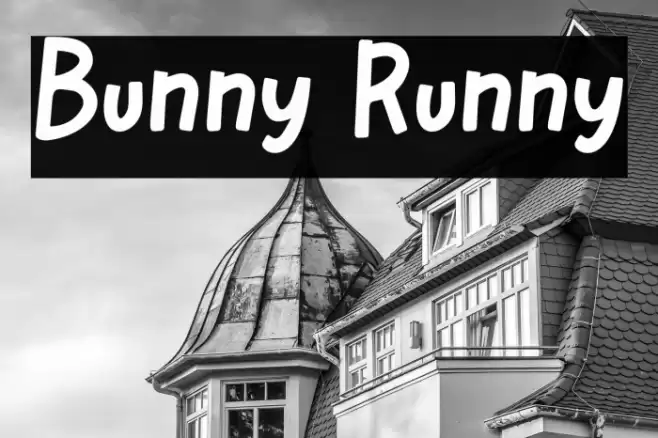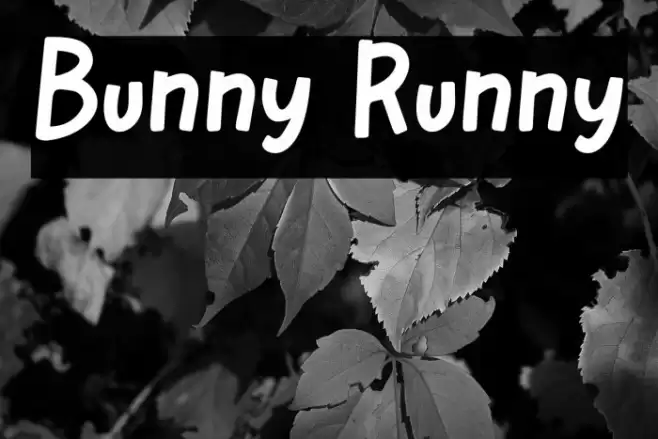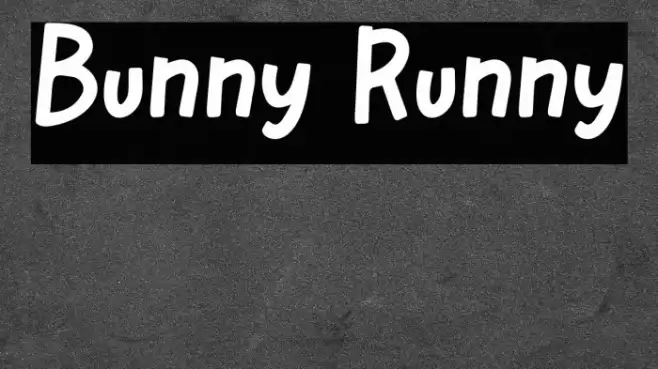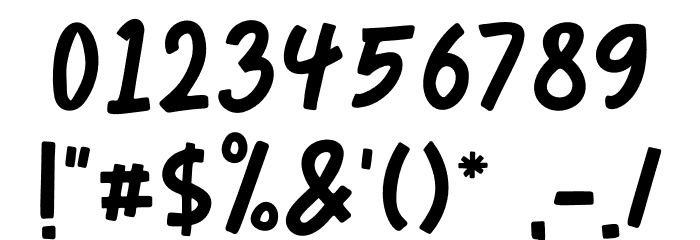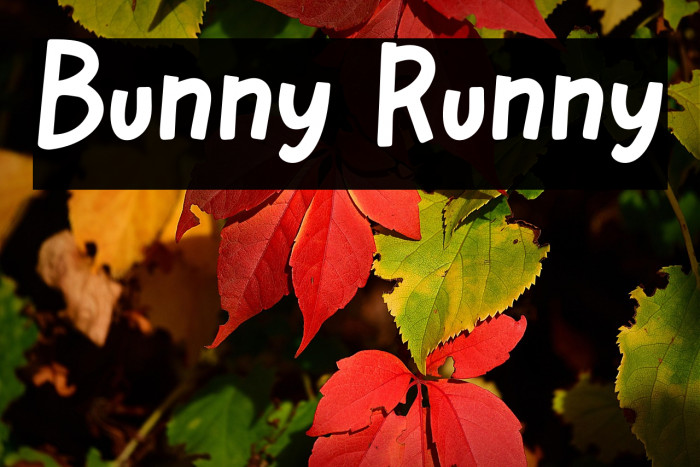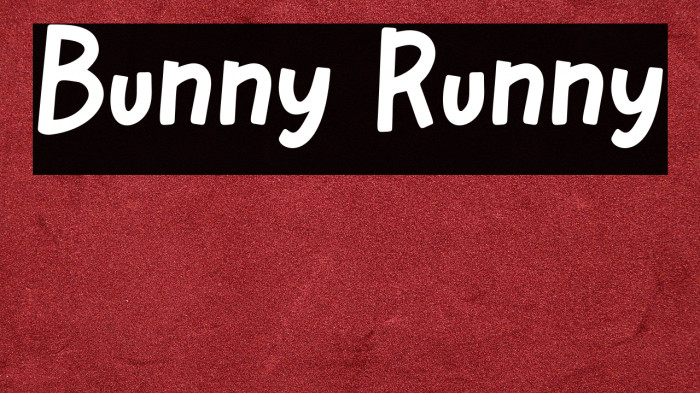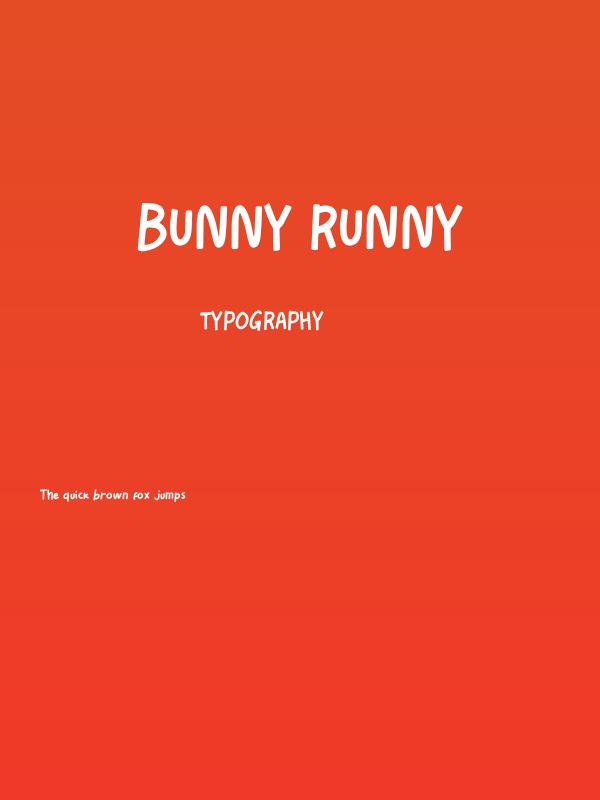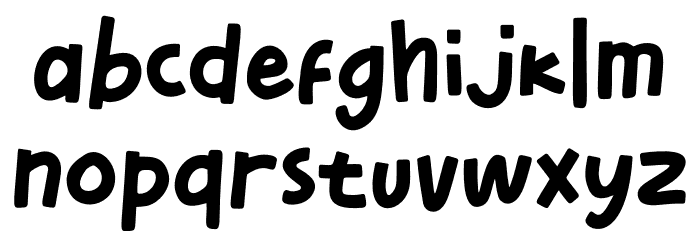
Bunny Runny Font
Bunny Runny Description
This playful and whimsical font features a hand-drawn style with rounded, uneven strokes that give it a friendly and approachable appearance. The letters are slightly irregular, adding to the charm and uniqueness of the design. The uppercase and lowercase characters maintain a consistent style, with a slight tilt that suggests movement and energy. The numbers and special characters are crafted with the same playful aesthetic, making the font versatile for various creative projects. Its informal and casual nature makes it ideal for designs that aim to convey fun and creativity.
A playful, hand-drawn font with rounded, uneven strokes and a whimsical style from Easter fonts.
- Font: Bunny Runny
- Proposed Projects: Ideal for children's books, playful branding, greeting cards, and creative posters.
- Overall Style: Playful
- Use Case: Headlines, Logos, Creative projects